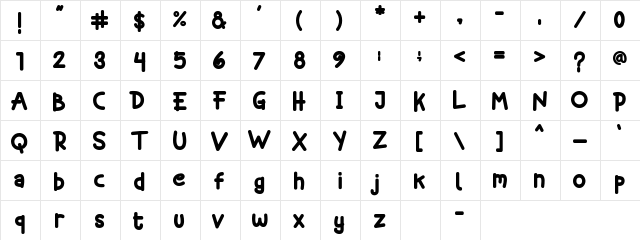
South Djakarta Regular
| Designer | Jadatype |
Design Context for South Djakarta Typeface
South Djakarta is a composed and adaptable typeface that performs quietly and consistently across a wide range of design contexts.